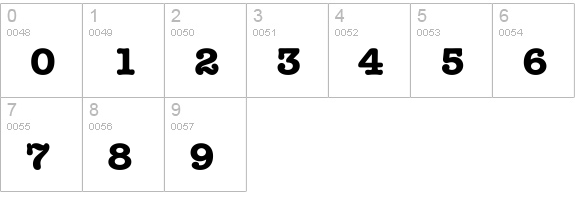
RomtypewriterBold Font Details
RomtypewriterBold is a stylish and modern font that exudes confidence and sophistication. Its bold and eye-catching design makes it perfect for a wide range of projects, from branding and advertising to social media graphics and website design. This versatile font is sure to make a statement and leave a lasting impression on your audience. What's even better is that RomtypewriterBold is available for free download at FontsMarket.com. This means you can easily access this premium font without having to break the bank. Whether you're a seasoned designer or just starting out, RomtypewriterBold is a valuable addition to your font collection. Don't miss out on the opportunity to elevate your projects with this stunning typeface that is both elegant and impactful.